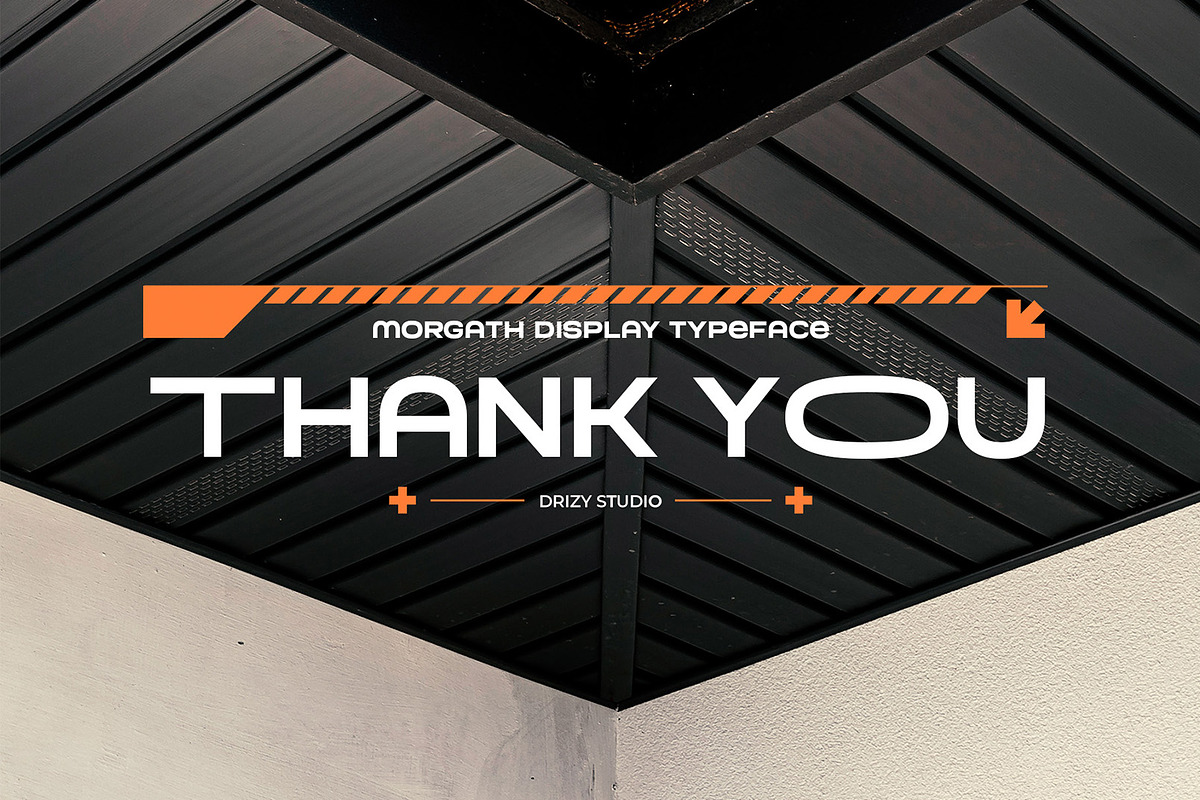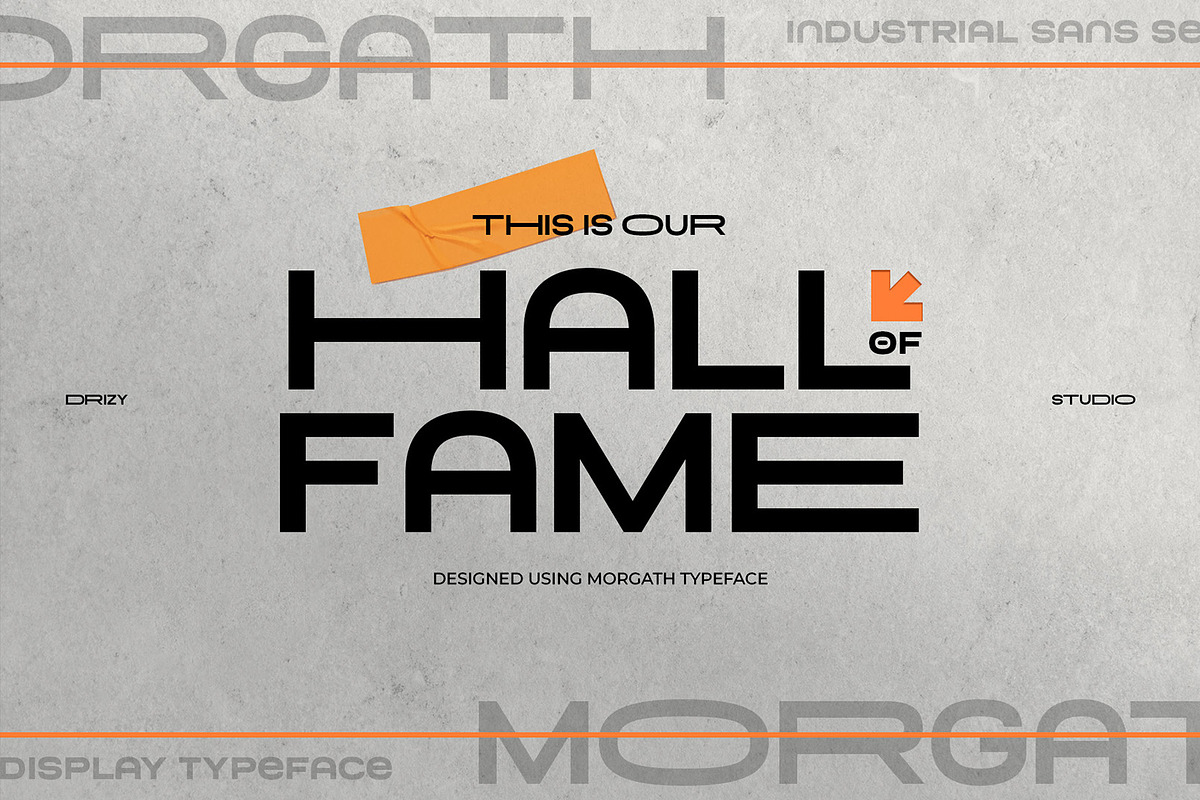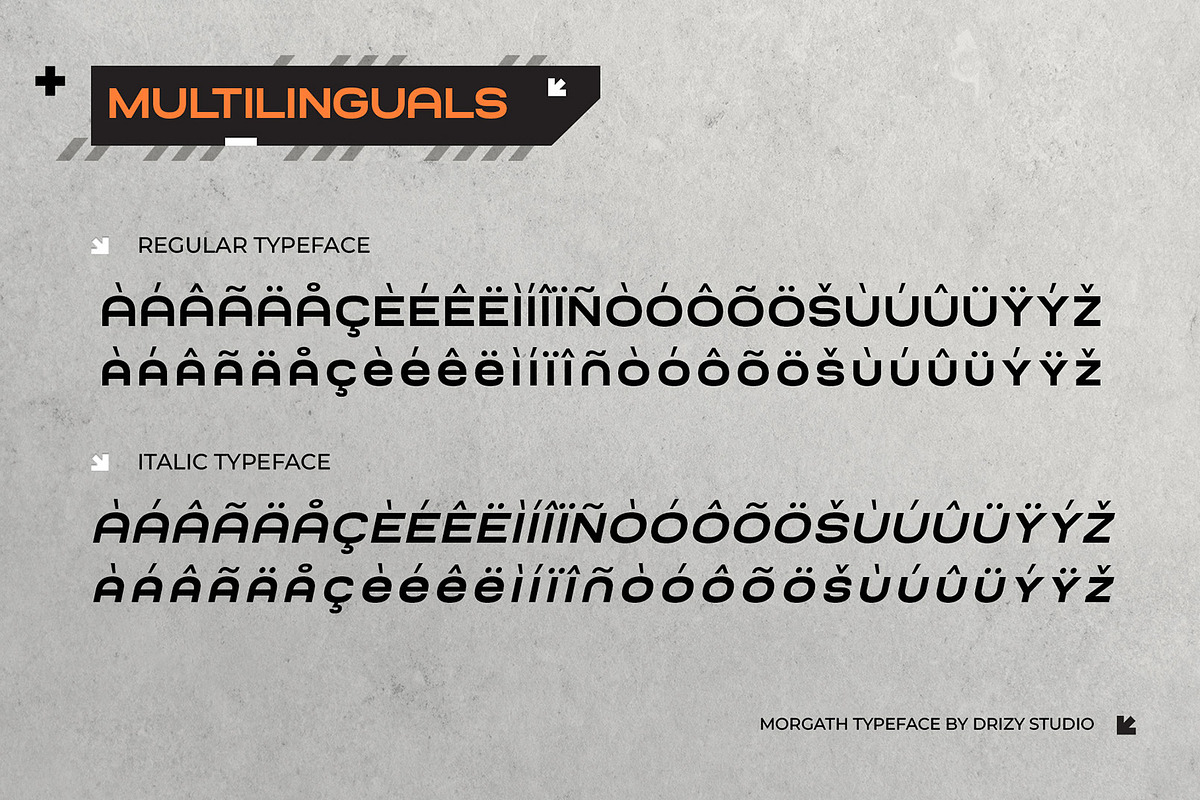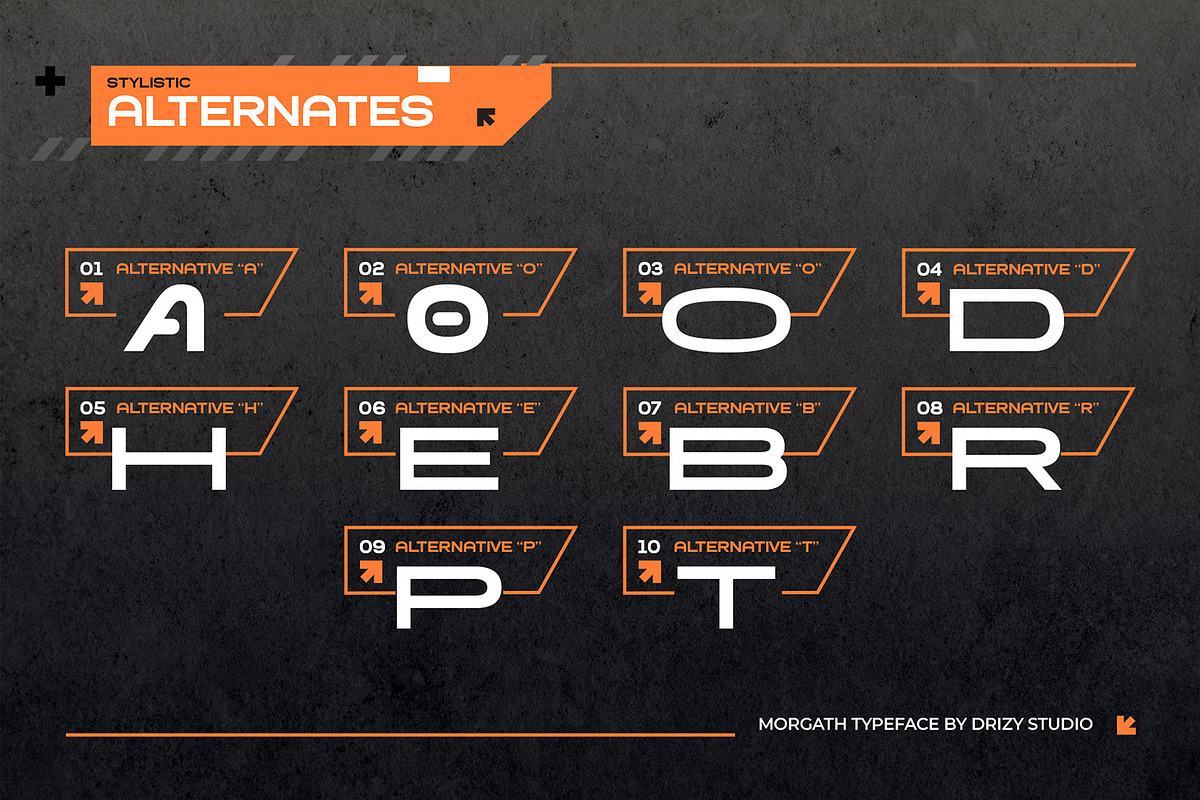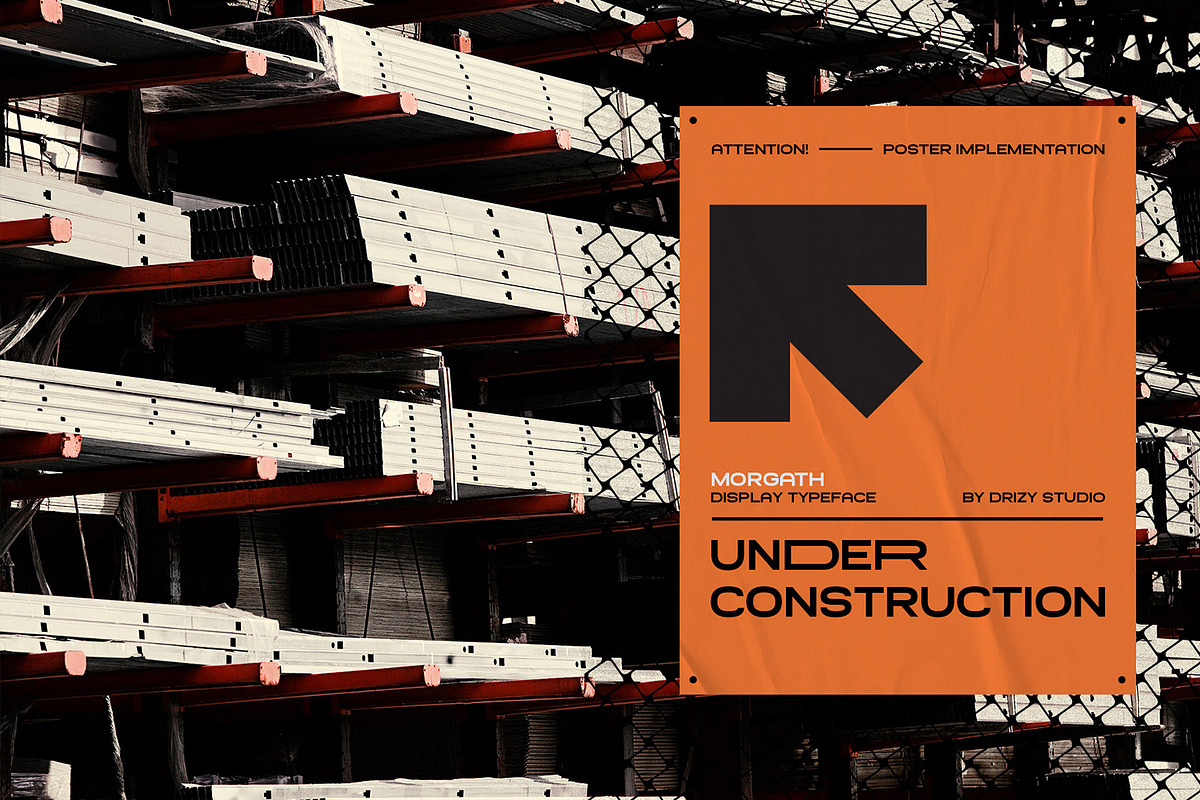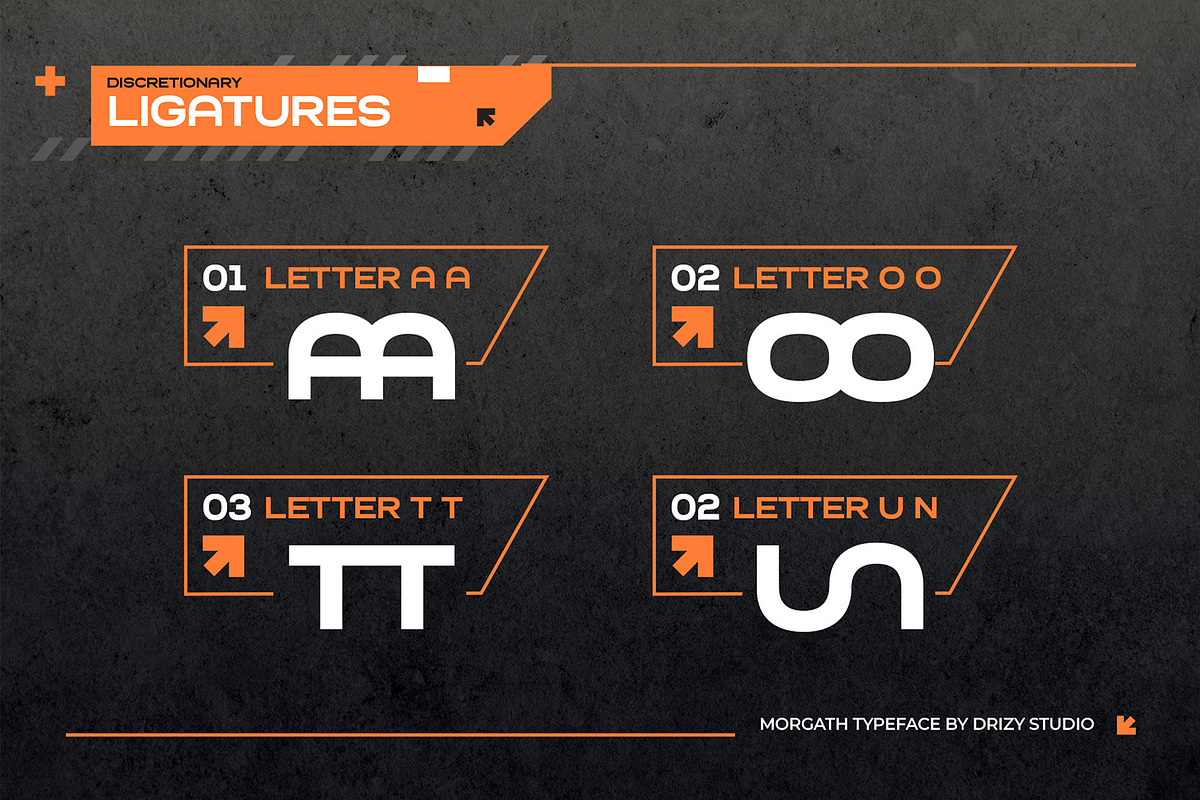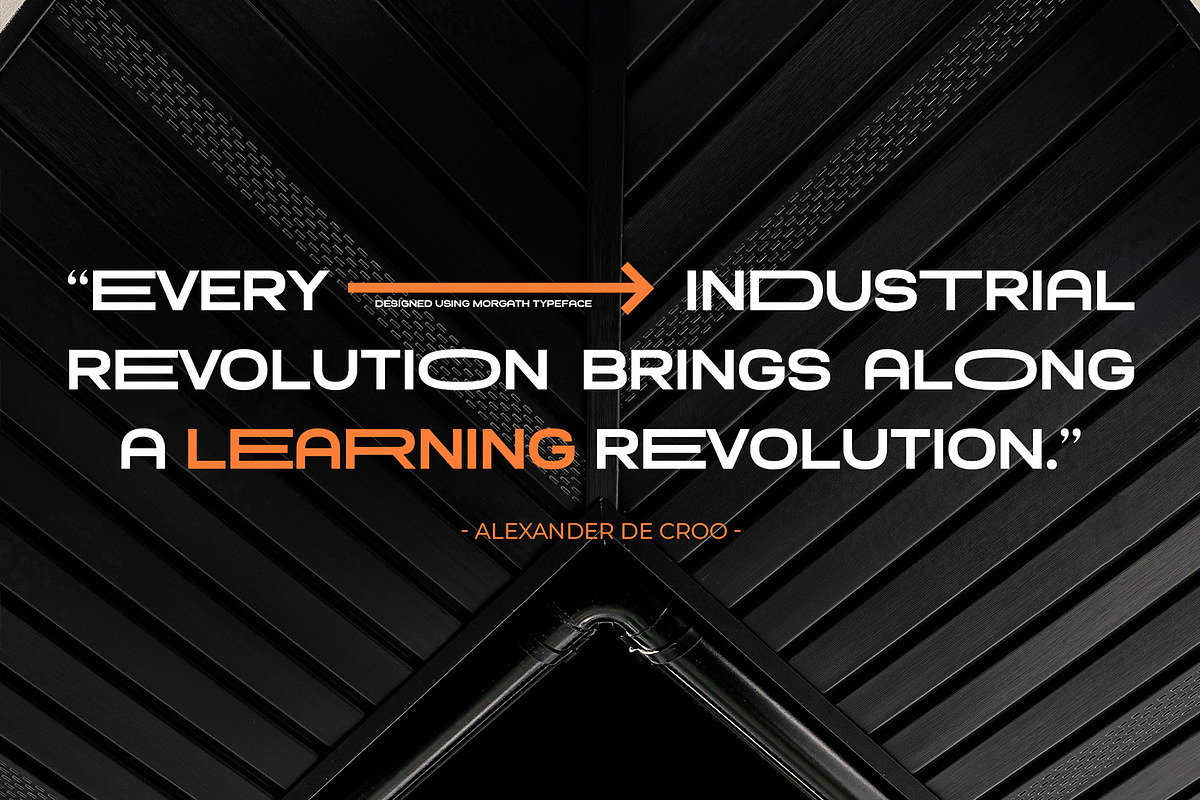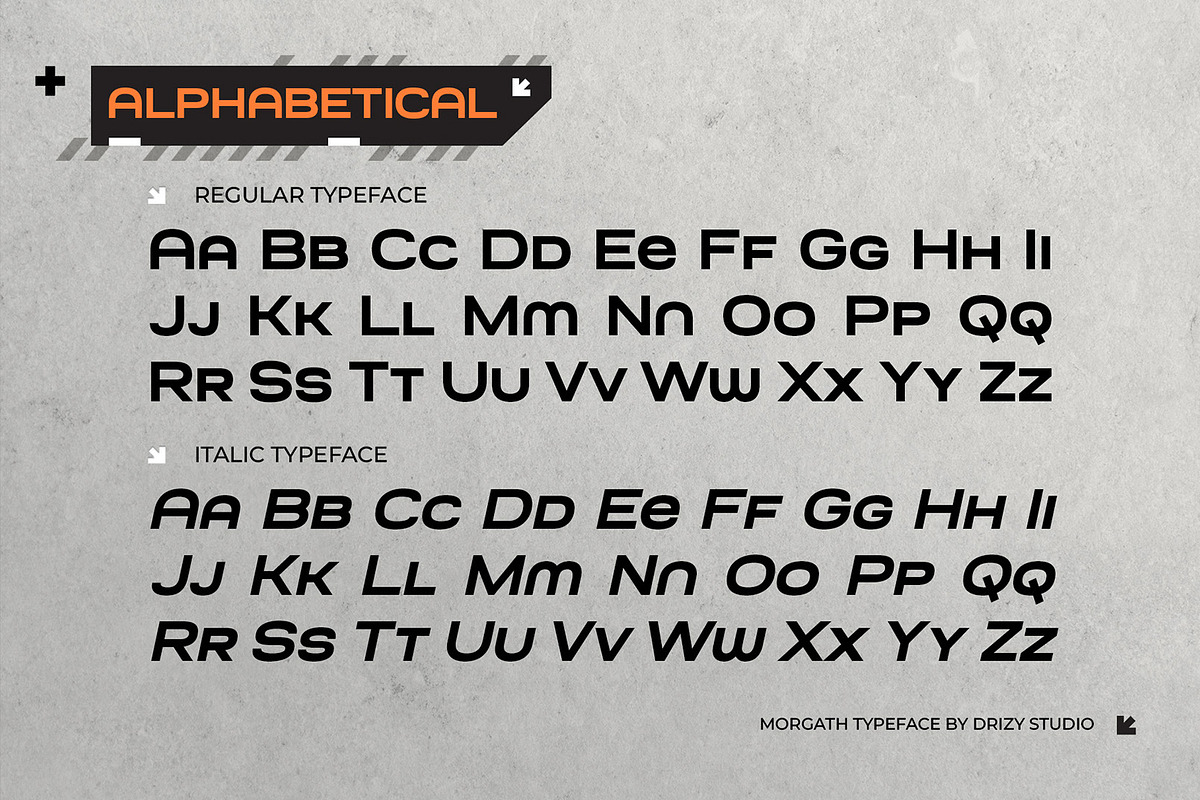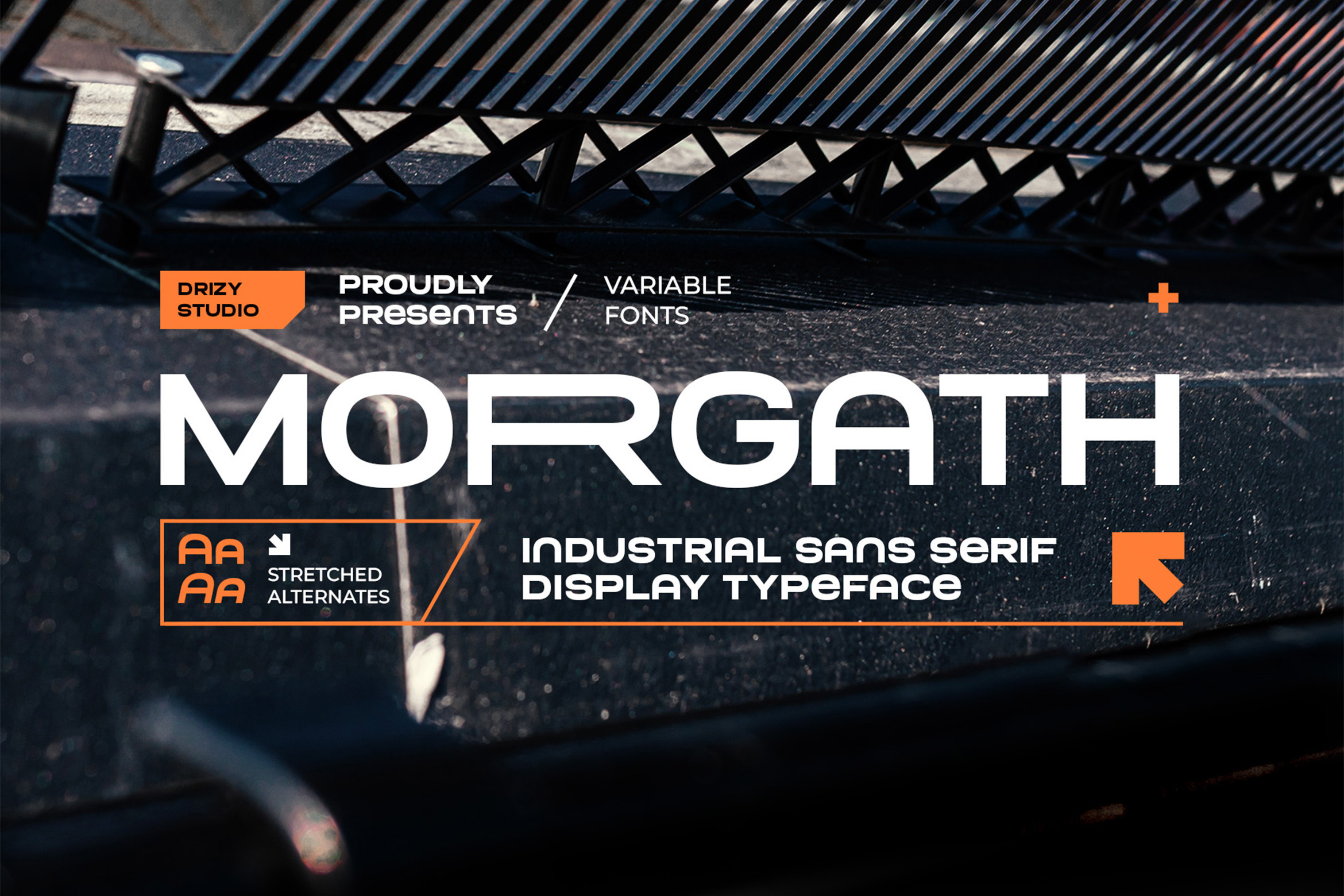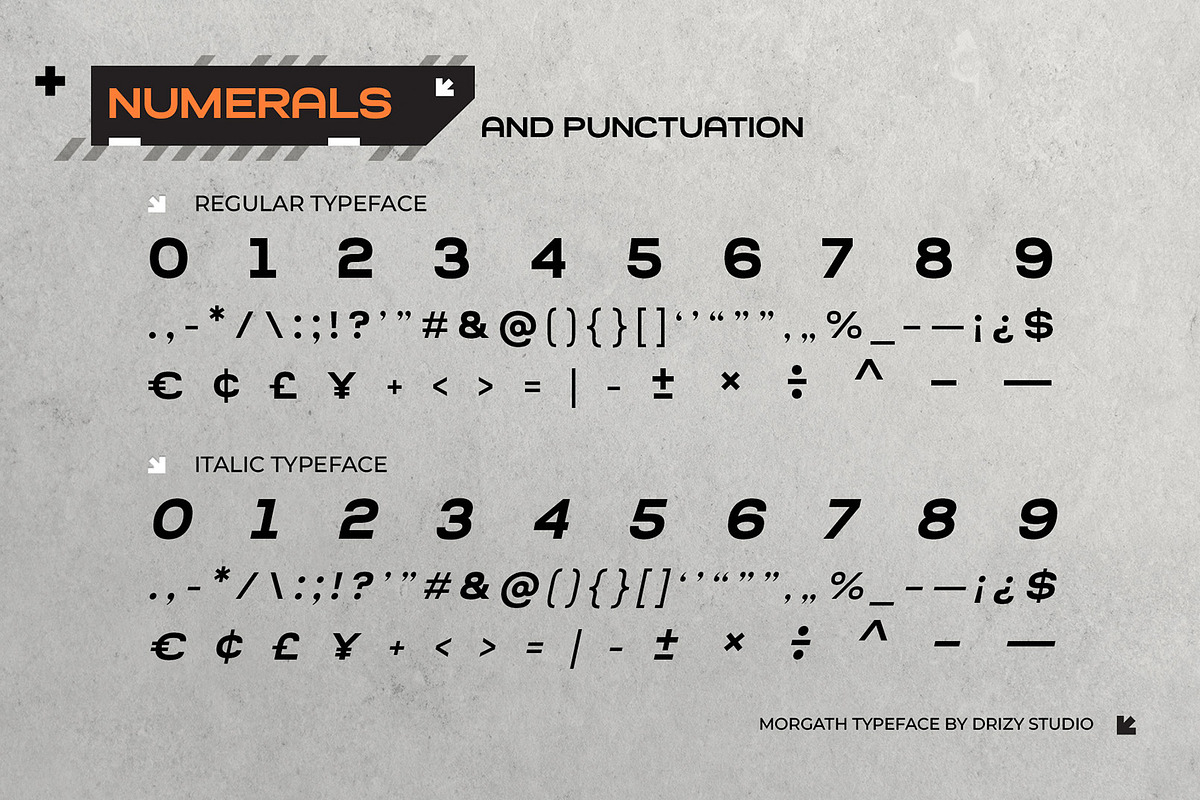
Morgath - Industrial Sans Serif Font
Prepare to explore the cutting edge of typography with Morgath, an extraordinary Industrial Sans Serif Font that's designed to bring a strong, mechanical vibe to your projects. Morgath is a font that mirrors the raw power and precision of the industrial world.
Morgath features: Uppercase & Lowercase Variable: Regular & Italic Punctuation & Numbers Multilingual Support Alternates Ligatures